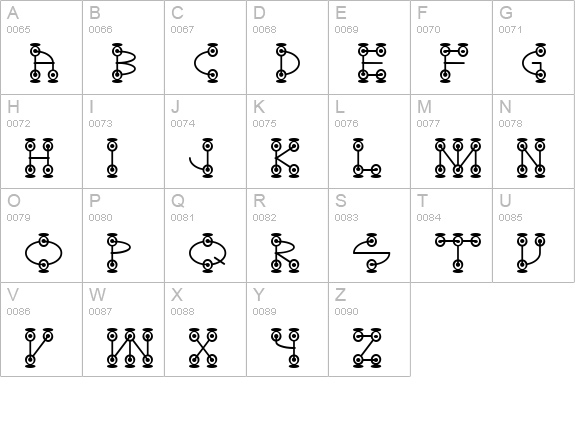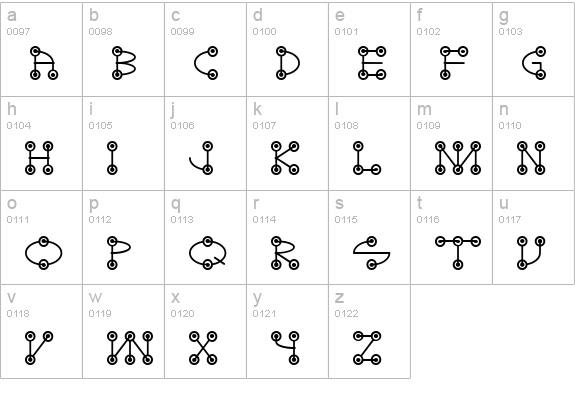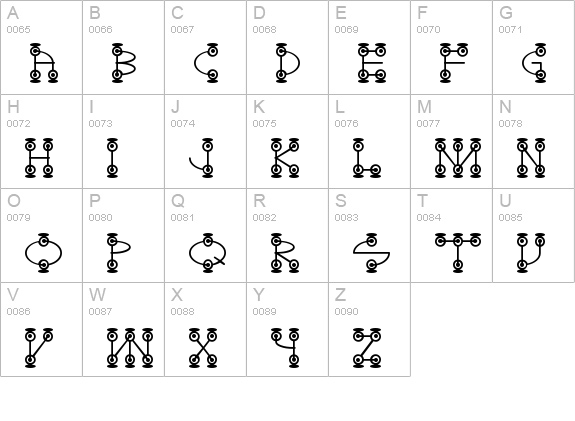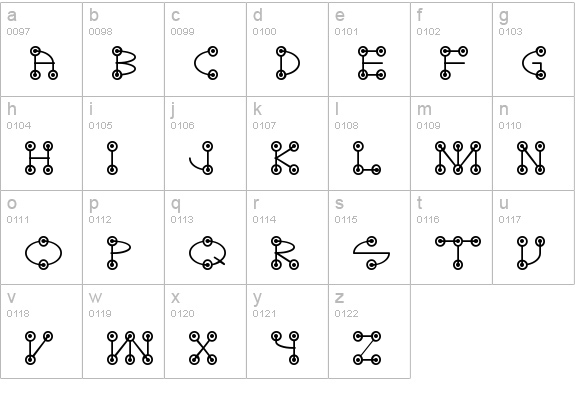
GalactoseONE Font Details
Introducing GalactoseONE, a captivating and versatile font that will take your designs to new heights. With its sleek and modern design, GalactoseONE is perfect for a wide range of projects, from logo designs to website headers, posters to social media graphics. Featuring clean lines and sharp edges, this font exudes elegance and sophistication. Its distinct letterforms effortlessly blend classic typographic elements with a contemporary twist, making it a truly unique addition to any design arsenal. But what sets GalactoseONE apart from the rest? It's the fact that it is completely free! Yes, you heard it right. This extraordinary font is freely available to download at FontsMarket.com, allowing you to enhance your creative endeavors without breaking the bank. Whether you're a professional designer looking for a fresh new font to add to your collection or a beginner searching for a font that will make your work stand out, GalactoseONE is the answer. Its versatility is unmatched, making it suitable for any project, regardless of its size or complexity. So why wait? Embrace the power of GalactoseONE and elevate your designs to a whole new level. Download this remarkable font for free at FontsMarket.com and let your creativity soar. With GalactoseONE, the possibilities are endless, and the results are sure to leave a lasting impression.